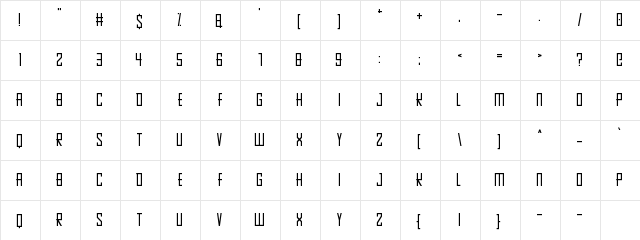
Pixelopolis 9000 Regular
Design Context for Pixelopolis 9000 Typeface
Pixelopolis 9000 is rooted in pixel-grid construction, making it a natural fit for game UI, retro computing aesthetics, and digital nostalgia projects.
A natural choice for retro game titles, chiptune music branding, 8-bit UI, and digital nostalgia projects.
Pro Tip: Pair Pixelopolis 9000 with flat colour palettes and simple geometric UI elements to reinforce its digital aesthetic.